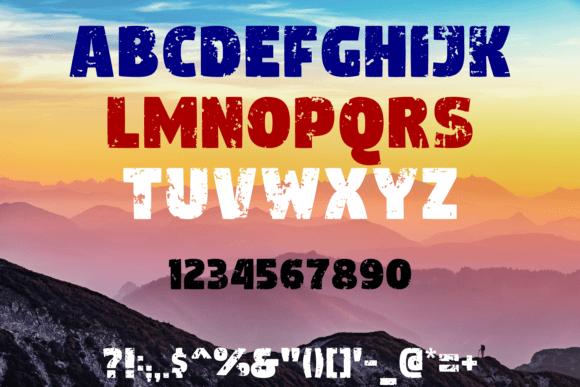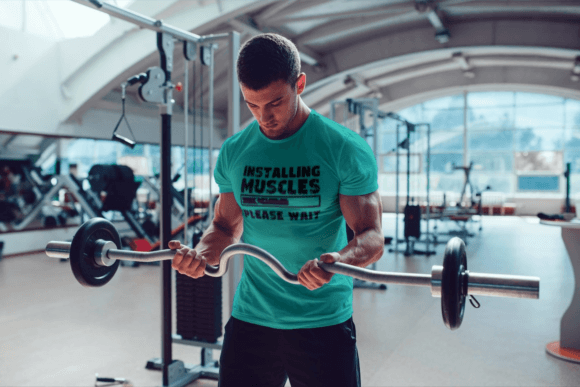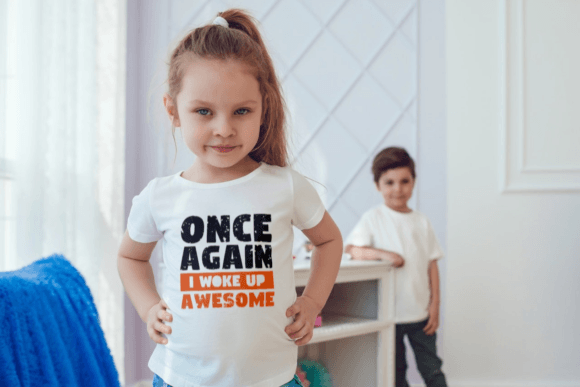
Unleash Your Creativity with Grungy Font: A Unique Display Font
Are you tired of using the same old fonts for your creative projects? Look no further than Grungy Font, an incredibly unique display font that’s sure to take your designs to the next level. Masterfully designed to become a true favorite, Grungy Font has the potential to bring each of your creative ideas to the highest level, making it a must-have for designers and crafters alike.
What is Grungy Font?
Grungy Font is a display font that’s designed to add a touch of grit and grime to your designs. With its rough, textured look, this font is perfect for creating eye-catching headlines, titles, and captions that demand attention. Whether you’re working on a graphic design project, crafting a logo, or creating social media graphics, Grungy Font is the perfect choice for adding a unique and edgy touch.
Key Features of Grungy Font
- Unique and Edgy Design: Grungy Font boasts a one-of-a-kind design that’s sure to make your projects stand out from the crowd.
- Highly Versatile: This font can be used for a wide range of projects, from graphic design and branding to crafting and DIY projects.
- Easy to Read: Despite its grungy texture, Grungy Font is surprisingly easy to read, making it perfect for use in headlines, titles, and captions.
Benefits of Using Grungy Font
So why choose Grungy Font for your next project? Here are just a few benefits of using this amazing display font:
- Adds Edge to Your Designs: Grungy Font adds a touch of grit and grime to your designs, giving them a unique and edgy look that’s sure to grab attention.
- Perfect for Branding and Identity: Use Grungy Font to create memorable logos, business cards, and other branding materials that will help your business stand out.
- Great for Crafting and DIY Projects: Grungy Font is perfect for crafters and DIY enthusiasts who want to add a personal touch to their projects.
Tips and Tricks for Getting the Most Out of Grungy Font
Here are a few tips and tricks for getting the most out of Grungy Font:
- Experiment with Different Colors: Grungy Font looks great in a range of colors, from bold and bright to muted and pastel.
- Mix and Match with Other Fonts: Combine Grungy Font with other fonts for a unique and eye-catching look.
- Use it for Headlines and Titles: Grungy Font is perfect for use in headlines and titles, where its bold and edgy design can really make an impact.